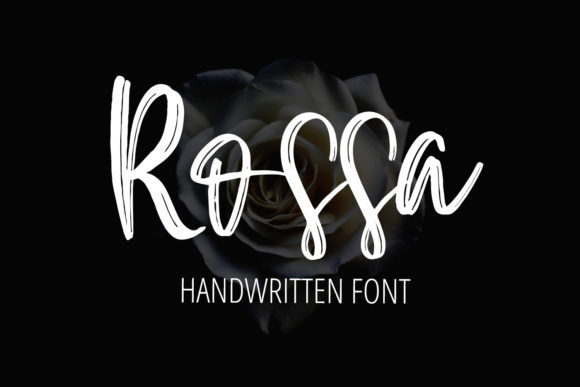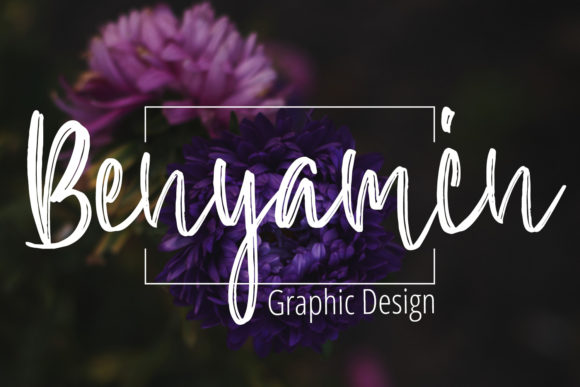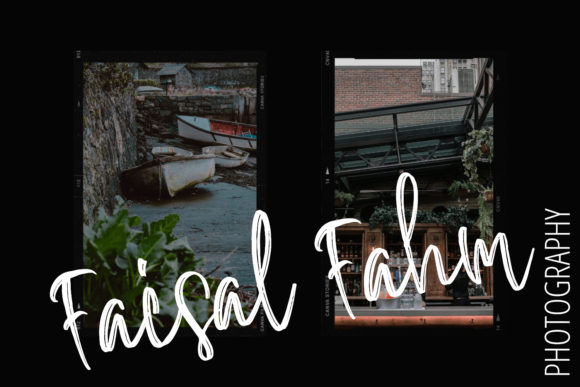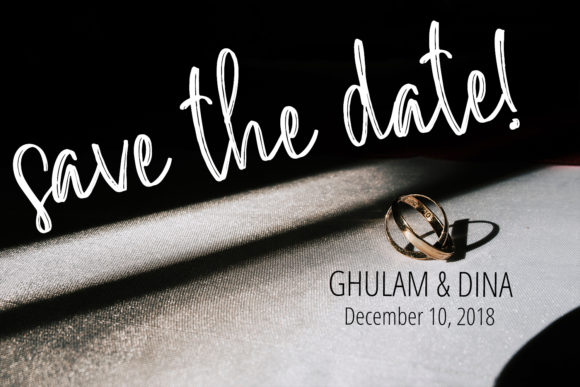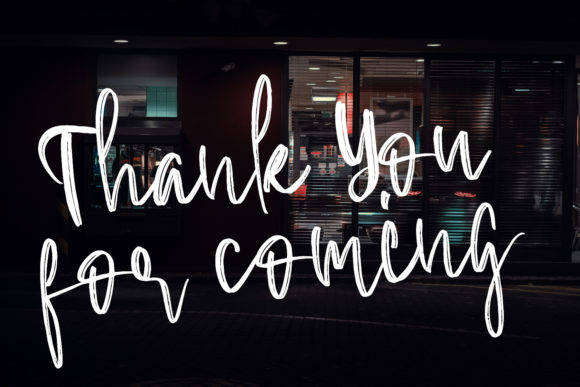
Rossa Font
About Rossa Font
Rossa is a sweet brushed handwritten font. It has a casual, yet elegant touch. It can be used for various purposes such as logos, wedding invitations, headings, t-shirts, letterhead, signage, labels, news, posters, badges and so much more.